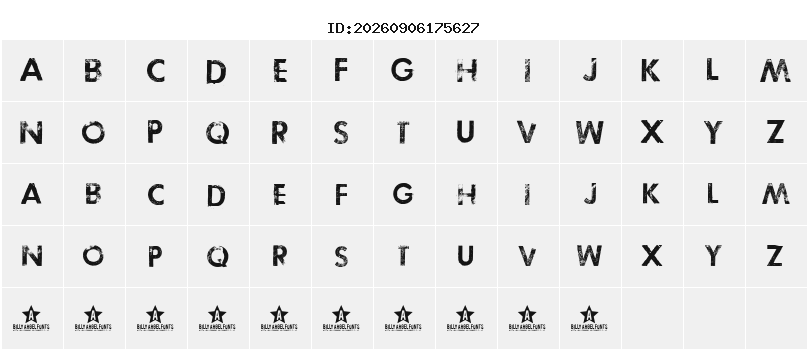
• Font Name: TOSCA ZERO
• Designer: Billy Argel
About TOSCA ZERO.ttf
TOSCA ZERO.ttf is a modern, elegant sans-serif font designed for ultimate readability and visual harmony. Perfect for branding, headlines, web design, and print materials.